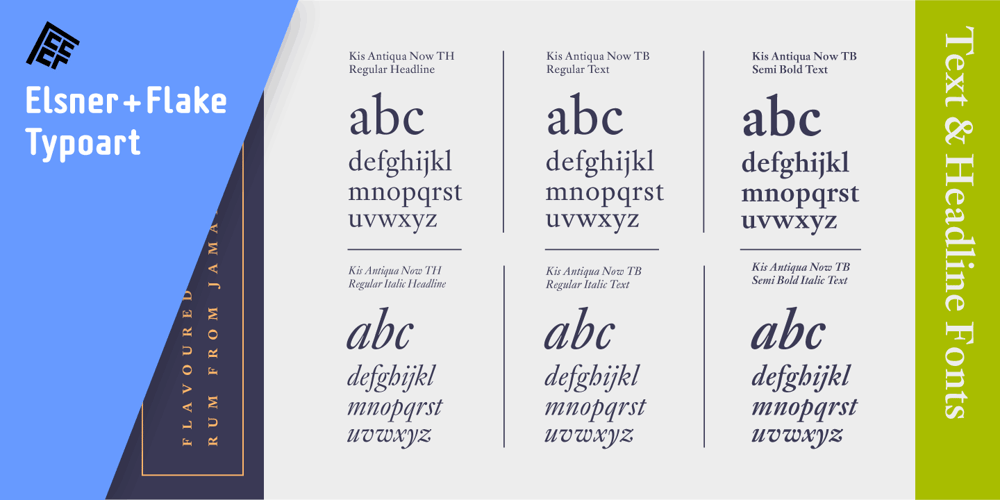
Kis Antiqua Now TH Pro
Kis Antiqua Now TH Pro font
Kis Antiqua Now TH Pro Font Family was designed by Erhard Kaiser, Nicholas (Miklós) Tótfalusi Kis, Hildegard Korger and published by Elsner+Flake. Kis Antiqua Now TH Pro contains 2 styles and family package options. In the course of the re-vitalization of its Typoart typeface inventory, Elsner+Flake decided in 2006 to offer the “Kis Antiqua” by Hildegard Korger, in a re-worked form and with an extended sortiment, as an OpenType Pro-version. After consultation with Hildegard Korger, Elsner+Flake tasked the Leipzig type designer Erhard Kaiser with the execution of the re-design and expansion of the sortiment. Detlef Schäfer writes in “Fotosatzschriften Type-Design+Schrifthersteller”, VEB Fachbuchverlag Leipzig, 1989: No other printing type has ever generated as far-reaching a controversy as this typeface which Jan Tschichold called the most beautiful of all the old Antiqua types. For a long time, it was thought to have been designed by Anton Janson. In 1720 a large number of the original types were displayed in the catalog of the „Ehrhardische Gycery“ (Ehrhardt Typefoundry) in Leipzig. Recently, thanks to the research performed by Beatrice Warde and especially György Haimann, it has been proven unambiguously that the originator of this typeface was Miklós (Nicholas) Tótfalusi Kis (pronounced Kisch) who was born in 1650 in the Hungarian town of Tótfal. His calvinistic church had sent him to the Netherlands to oversee the printing of a Hungarian language bible. He studied printing and punch cutting and earned special recognition for his Armenian and Hebrew types. Upon his return to Hungary, an emergency situation forced him to sell several of his matrice sets to the Ehrhardt Typefoundry in Leipzig. In Hungary he printed from his own typefaces, but religious tensions arose between him and one of his church elders. He died at an early age in 1702. The significant characteristics of the “Dutch Antiqua” by Kis are the larger body size, relatively small lower case letters and strong upper case letters, which show clearly defined contrasts in the stroke widths. The “Kis Antiqua” is less elegant than the Garamond, rather somewhat austere in a calvinistic way, but its expression is unique and full of tension. The upper and lower case serifs are only slightly concave, and the upper case O as well as the lower case o have, for the first time, a vertical axis. In the replica, sensitively and respectfully (responsibly) drawn by Hildegard Korger, these characteristics of this pleasantly readable and beautiful face have been well met. For Typoart it was clear that this typeface has to appear under its only true name “Kis Antiqua.” It will be used primarily in book design. Elsner+Flake added these two headline weights, which are available besides a separate font family Kis Antiqua Now TB Pro. Designer: Miklós (Nicholas) Tótfalusi Kis, 1686 Hildegard Korger, 1986-1988 Erhard Kaiser, 2008